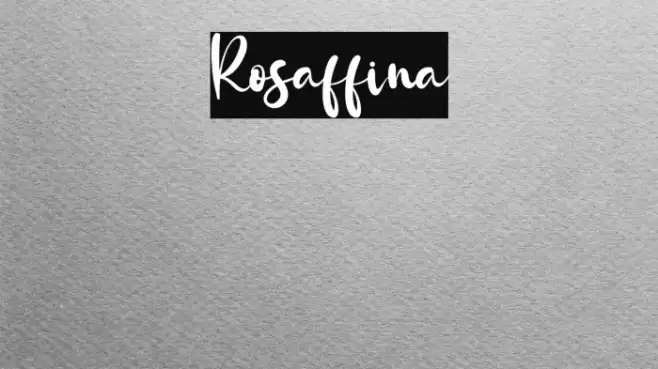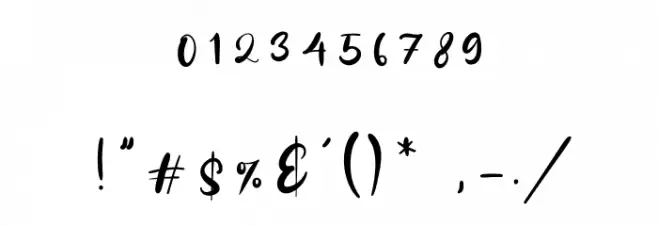
Rosaffina Font
Rosaffina Description
This font features a flowing, cursive style that exudes elegance and charm. The uppercase letters are bold and sweeping, with a distinctive flair that adds a touch of sophistication. The lowercase letters maintain a consistent flow, enhancing readability while retaining a stylish appearance. Numbers and special characters are crafted with the same attention to detail, ensuring a cohesive look across all text elements. The overall design is perfect for projects that require a personal, handwritten touch, making it ideal for invitations, branding, and decorative purposes.
A stylish cursive font with elegant, flowing characters from Uncategorized fonts.
- Proposed Projects: Ideal for wedding invitations, branding, greeting cards, and decorative signage.
- Overall Style: Elegant, Decorative
- Use Case: Logos, Invitations, Decorative text